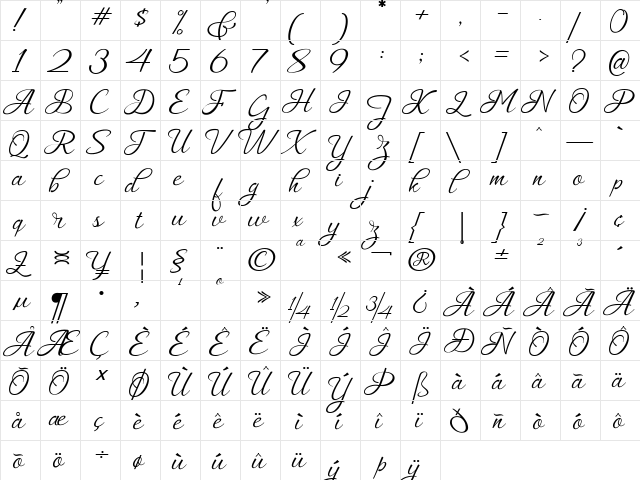
Muangthai Regular
| Foundry | saiful bahri |
| Designer | saiful bahri |
Design Context for Muangthai Typeface
Muangthai takes a measured approach to typography — its balanced proportions and neutral character make it a reliable workhorse for both digital and print work.